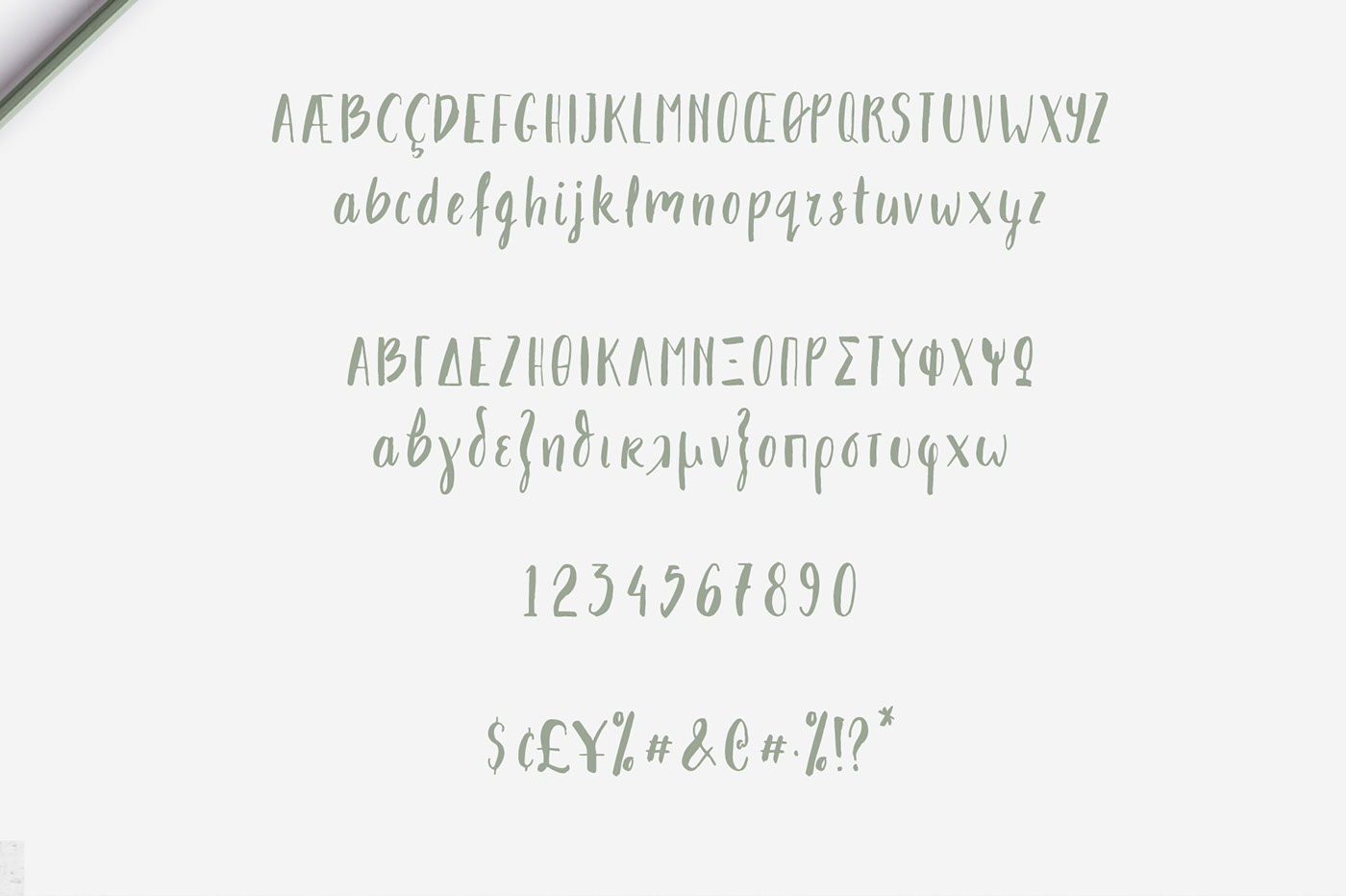
Takhie Font is a multilingual brush font and it is completely free!
Supports the following character sets:
- Latin,
- Greek and
- punctuation marks,
- diacritics and
- numbers